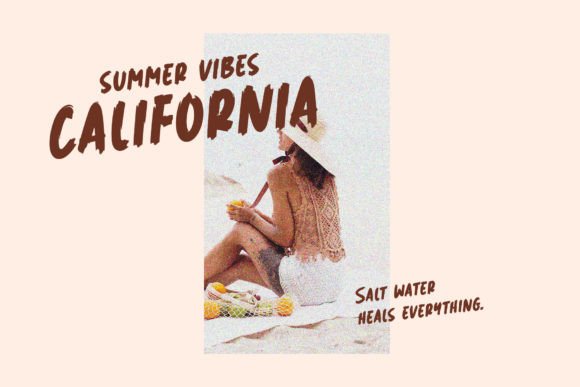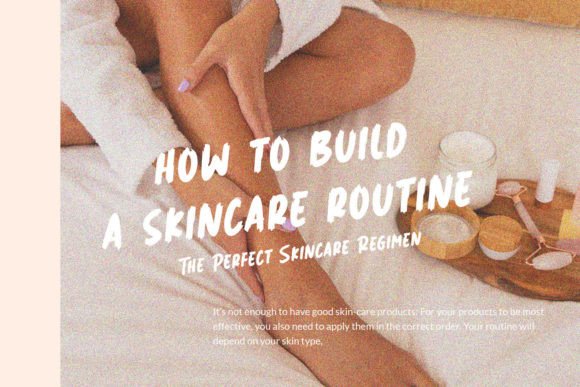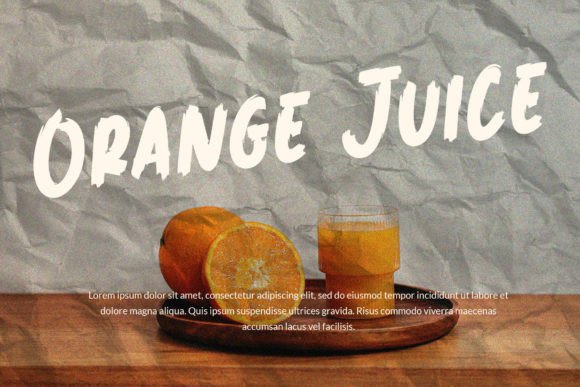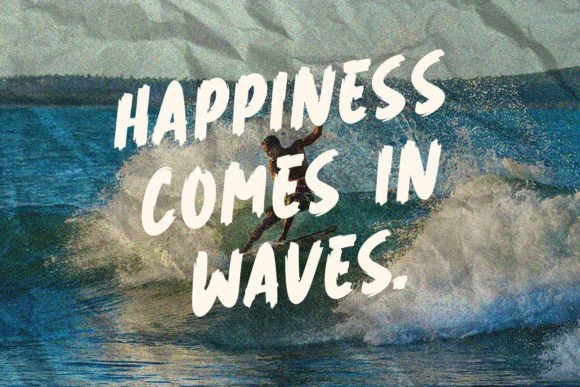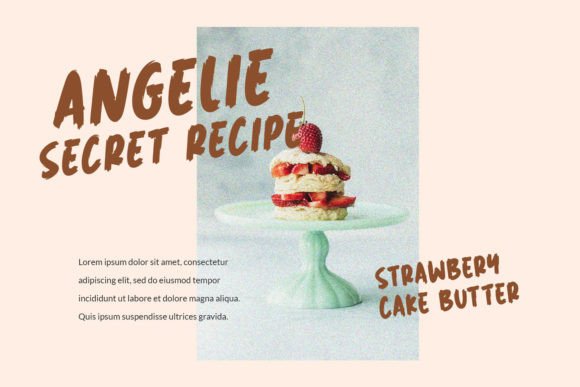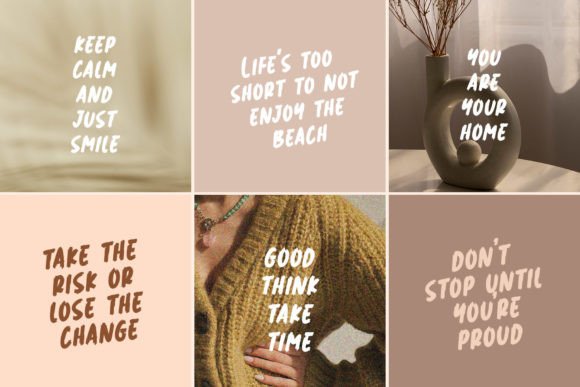
Introduction to Lemon Dessert Font
As a designer, you’ve likely experienced that moment of pure joy when a creative project finally comes together. The hours of brainstorming, sketching, and refining all culminate in a beautiful, cohesive piece that showcases your unique style. But what about the tiny details that can make or break the overall aesthetic? Enter the Lemon Dessert Font, a natural, handwritten marker font designed to elevate your work to new heights.
With its transparent background and high-quality design, the Lemon Dessert Font is the perfect addition to any creative project. Whether you’re working on a personal or professional design resource, this font is sure to add a touch of whimsy and personality to your work. And the best part? It’s incredibly easy to use, making it a valuable asset for designers of all levels.
Key Features of Lemon Dessert Font
- Unique, hand-drawn design with a playful and whimsical feel, perfect for creative projects.
- Available in various font sizes, including small caps and bold weights, to suit different design requirements.
- Designed as a design resource for creative professionals, ideal for use in branding, packaging, and editorial design projects.
Honest Review: Lemon Dessert Font
I recently came across the Lemon Dessert Font, and I have to say, it’s a lovely addition to any design resource collection. As a designer, I appreciate high-quality fonts that can elevate a creative project and make it stand out. The Lemon Dessert Font delivers in this regard.
- ✨ Unique and playful design: The font’s style is perfect for adding a touch of whimsy to a design, making it a great choice for projects that require a creative twist.
- ✨ High-quality design: The font’s resolution and clarity are top-notch, ensuring that it will look great on any device or screen.
However, there are a few limitations to keep in mind: ⚠️ The font is not suitable for projects that require a transparent background, as it doesn’t have a transparent variant. Additionally, the font’s design may not be suitable for formal or professional projects, as it’s more geared towards creative and playful projects.
Overall, I’m impressed with the Lemon Dessert Font, and I think it’s a great addition to any designer’s toolkit. With its unique design, high-quality resolution, and free download, it’s an excellent choice for designers looking to add a creative touch to their projects.
Use the Lemon Dessert Font for creative projects such as food blogs, recipe cards, and dessert-themed designs. This font is also ideal for creating a vintage or retro look in your designs. To get the most out of this font, experiment with different font sizes and colors to create a visually appealing design.
Is the Lemon Dessert Font available with a transparent background?
Yes, the Lemon Dessert Font is available with a transparent background, making it perfect for use on images or backgrounds with complex designs. This feature allows for seamless integration of the font into your creative project, giving you more flexibility and control over the design.